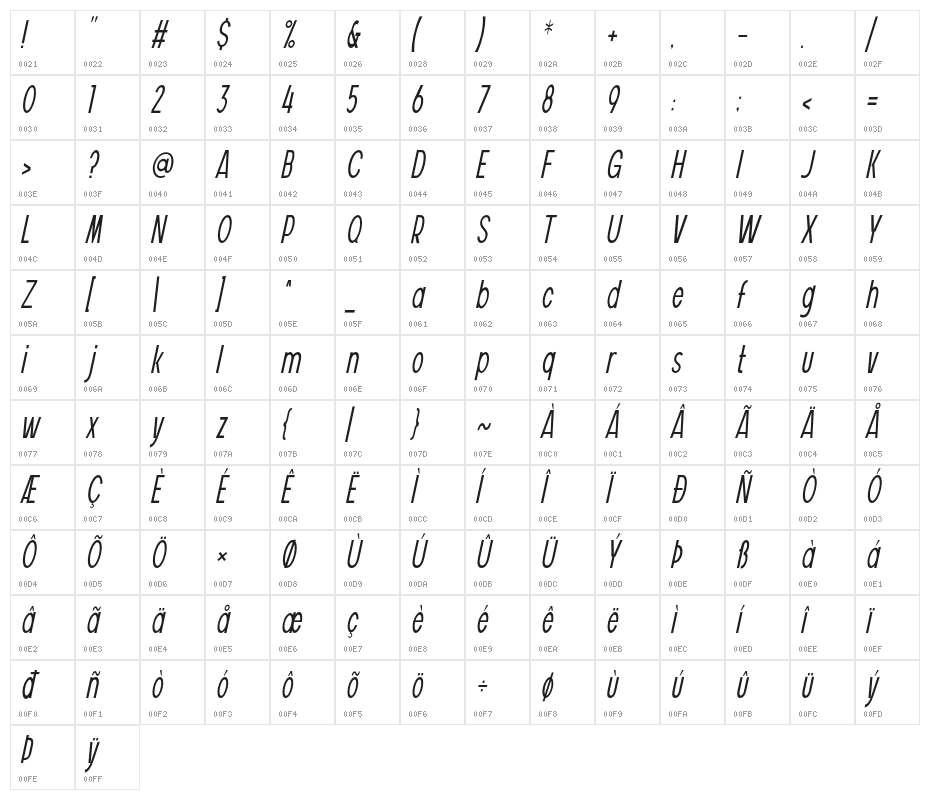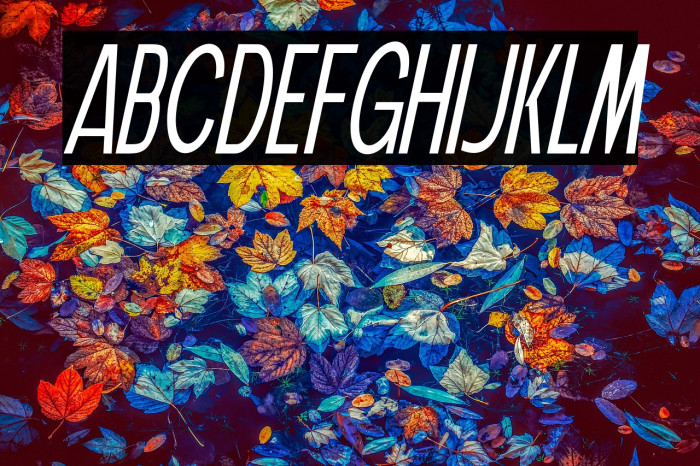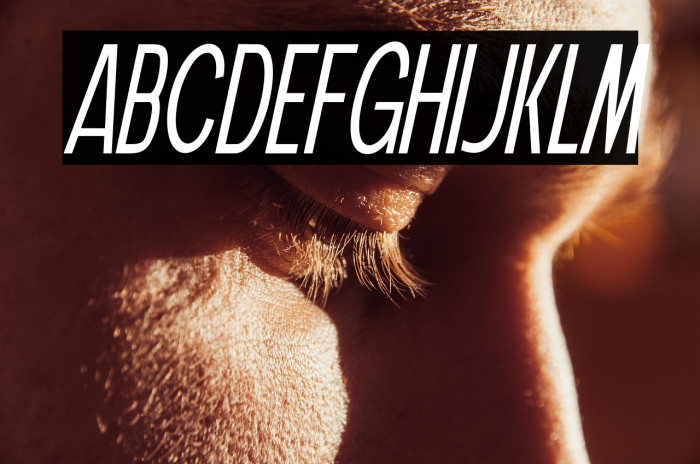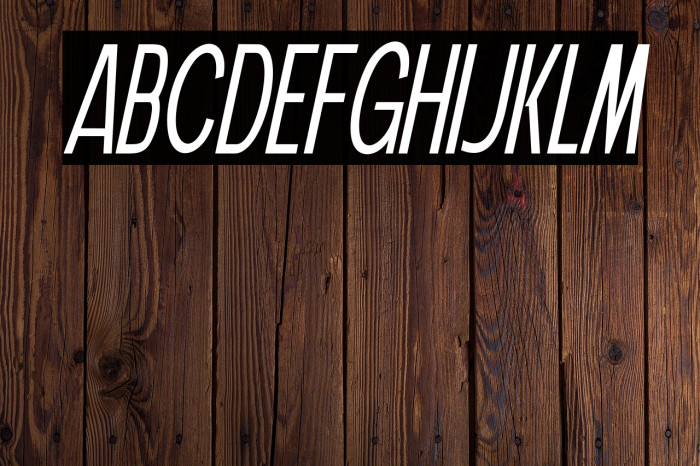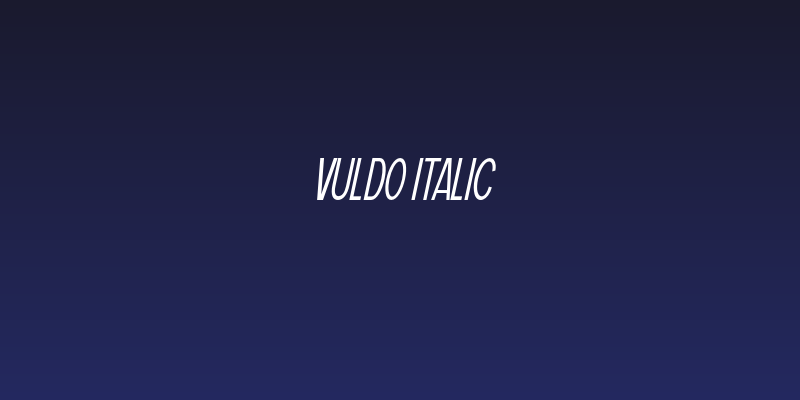
Vuldo Italic Font
Vuldo Italic Description
This font features a sleek, italicized style with elongated letterforms that convey a sense of motion and elegance. The characters are slightly condensed, enhancing their verticality and providing a modern, streamlined appearance. The strokes are consistent in weight, offering a medium contrast that balances readability with aesthetic appeal. The font includes a full set of uppercase and lowercase letters, numerals, and a variety of special characters, making it versatile for various design needs.
| Use Case | Headlines, Logos, Advertising |
| Proposed Projects | Ideal for branding projects, modern editorial layouts, and dynamic advertising campaigns. |